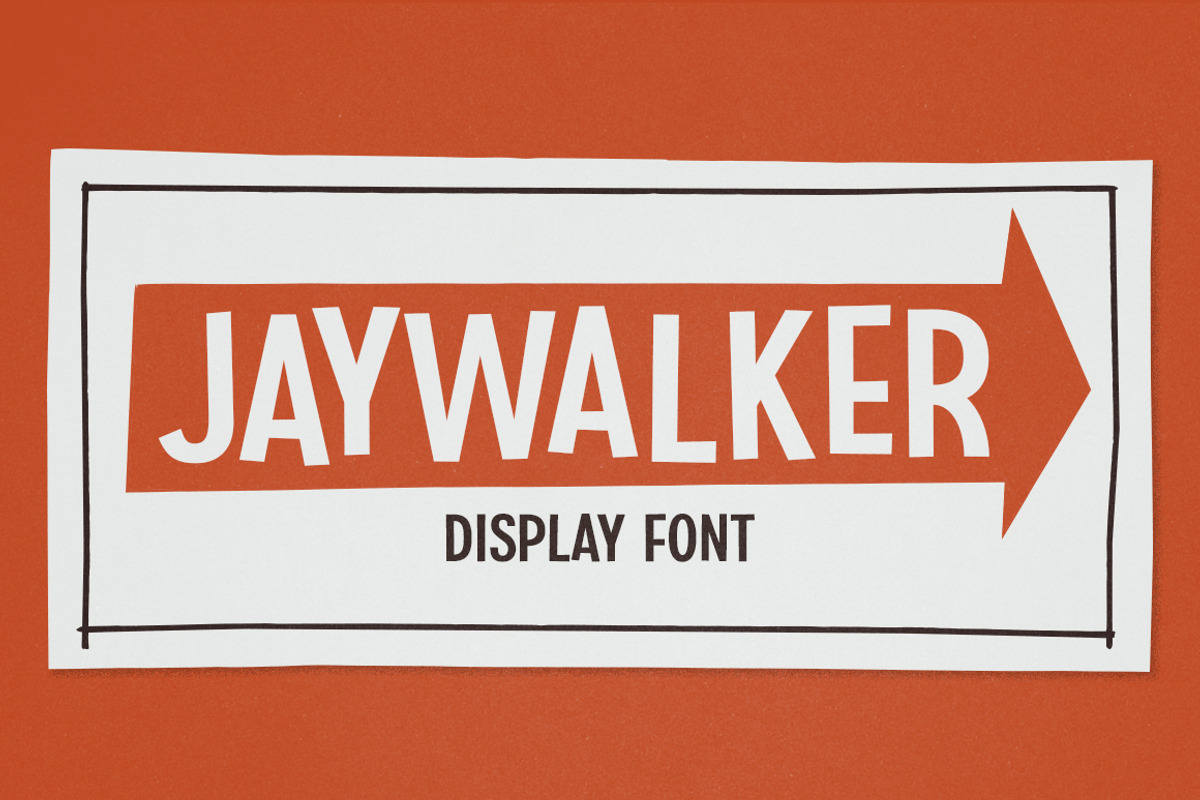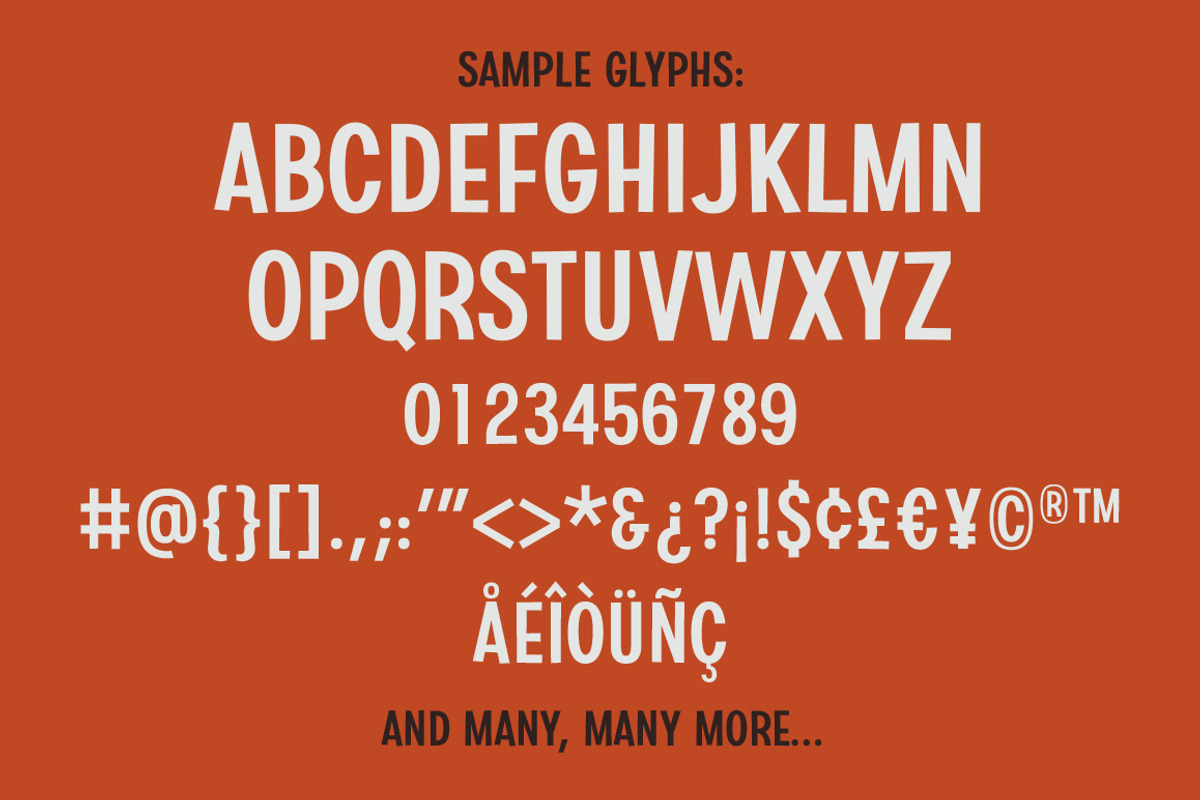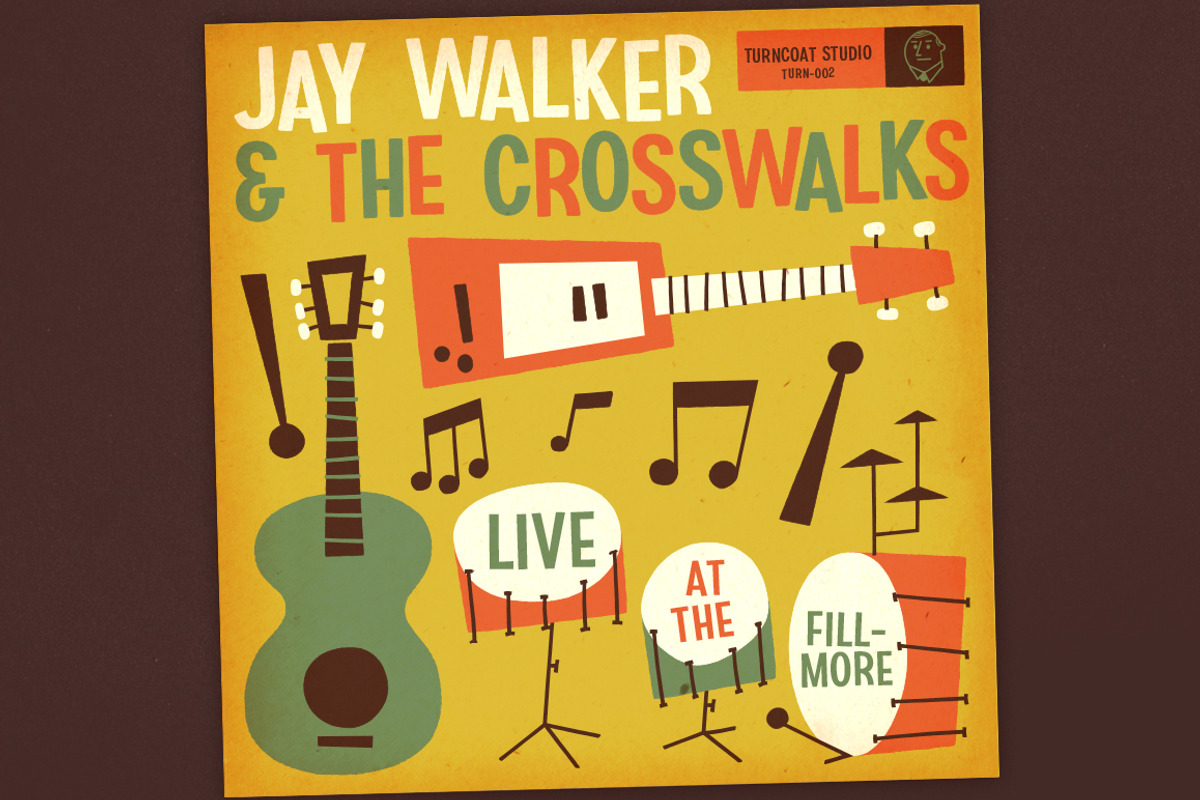
Jaywalker - Display Font
Jaywalker - Display Font by Turncoat Studio is a font selected for branding, posters, packaging, typography.
- Uppercase characters
- Numbers and mathematical symbols
- Special characters and accents
- Supports most Western European languages
- Contains 160+ glyphs
Jaywalker - Display Font by Turncoat Studio fits naturally into Branding, posters, packaging, typography.